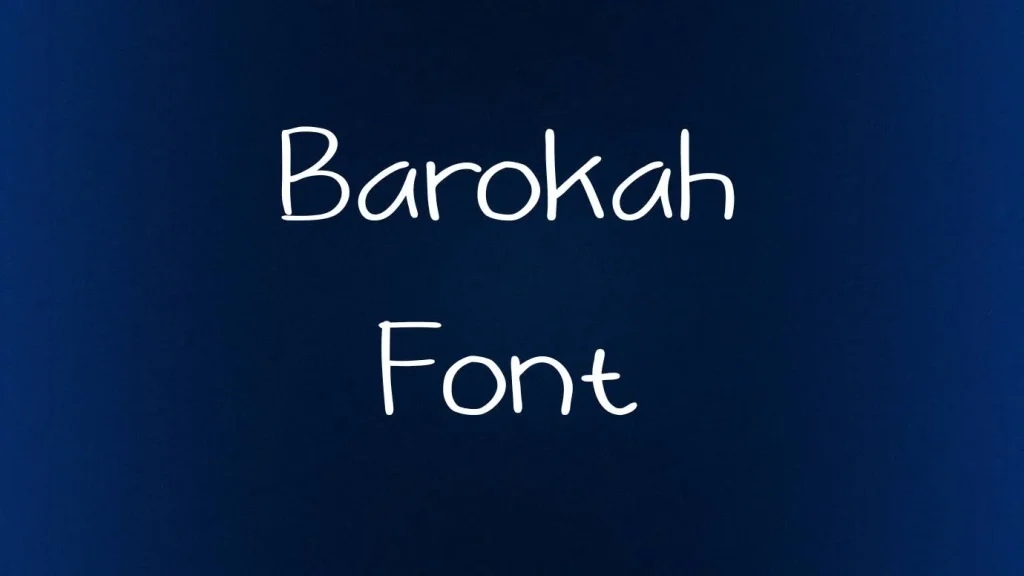
This falls under the handwritten texture category created by Barokah. You’ll probably love this creative retro font as your preferred choice. It’s versatile and can be used for various purposes like invitations, social media posts, books, and magazines. Incorporate it into your projects to enhance your ideas
It can also be utilized with AR cena font and create stunning designs. This font family is used in all kinds of projects in accordance with the precise needs and requirements of users.
View of Barokah Font
The family includes only one weight. This Font is a versatile typeface that can be used in a variety of design projects. Down here you are able to see the features of this font which comprises alphabet structure and all that you will need to know.
Uses of Barokah Font
This traditional font is frequently used for various logos connected to different industries. This amazing font is simple to use for any design that suits your interests. It is used for the logos of the most well-known animated films in America. This font was used by various designers for various headings and title types.
When you use this font in your projects, it increases the value of your work to various clients. Its font generator makes it simple to create visually stunning graphic designs. Due to its many applications, it is more well-liked by various designers.
The albret font is a perfect choice for pairing with this font and may easily create elegant designs. You can efficiently and accurately complete your various projects by using this typeface. Excellent marketing uses for this font family can be found. Additionally, you can use this typeface to create different newspapers, posters, banners, game graphics, and book covers.
| Name | Barokah Font |
| Style | Handwritten |
| Designer | Barokah |
What other fonts resemble Barokah Font?
The ideal replacement for this lovely typeface is the Bella signature font, which also offers replacements for the characters and corners.
Where we can use the Barokah typeface?
Despite the conventional typography, the fundamental components are excellent. Perfect for logos, invites, magazine layouts, and other artwork.